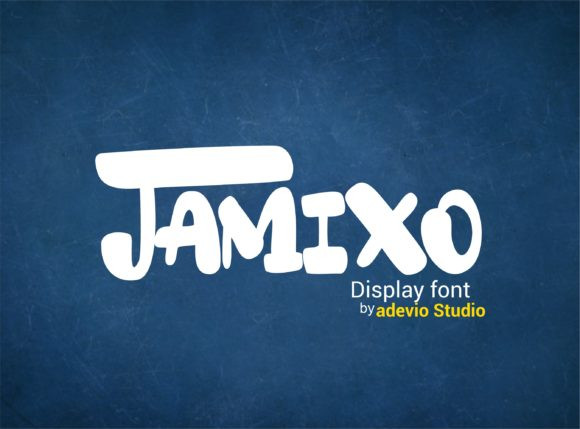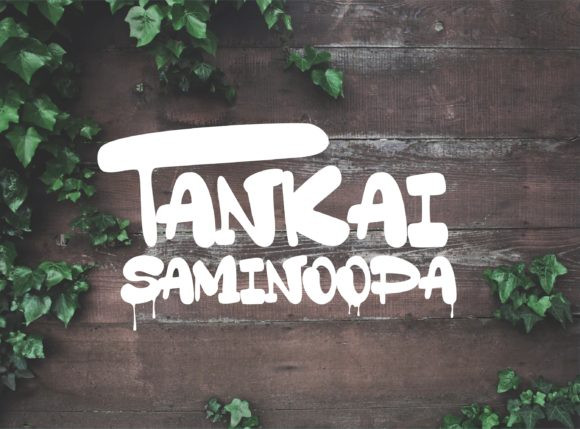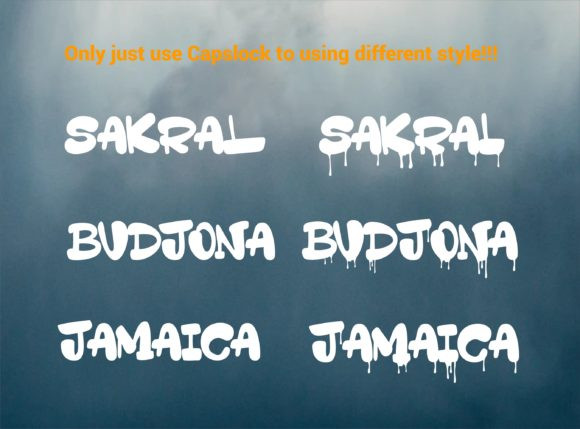
Jamixo Font
Jamixo is a cute and casual display font with an incredibly friendly feel. Whether you’re looking for fonts for Instagram or for your DIY projects, this font will turn any creative idea into a true piece of art!